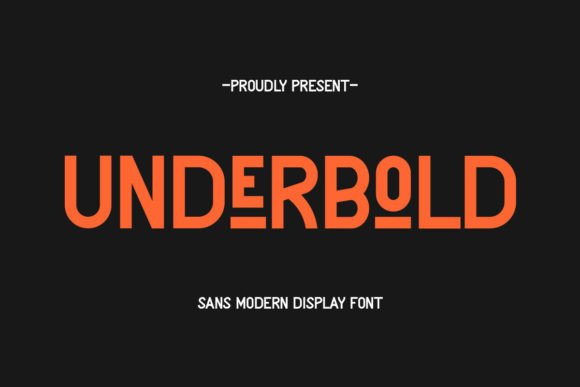
Step onto the court and make a statement with Underbold, the font that captures the essence of basketball's dynamic spirit. This sans serif font, brought to you by Masyafi Studio, embodies the sleek and energetic style of the game. Its minimalist monoline shape, meticulously crafted with a modern touch, exudes confidence and agility.
With Underbold, your designs will dribble past the competition, leaving them in awe. Its clean lines and sharp angles mimic the swift moves of a point guard, cutting through the defense with precision. Whether you're creating posters, jerseys, or social media graphics, Underbold will elevate your designs to championship status.
Imagine your words leaping off the screen, soaring through the air like a perfectly executed jump shot. Underbold's modern style brings a fresh perspective to your designs, making them stand out from the crowd. It's the perfect font for capturing the raw energy and passion of basketball, inspiring your audience to reach for greatness.
Underbold is not just a font; it's a game-changer. It's the secret weapon that will help you dominate the design court. Its versatility extends beyond basketball, making it a powerful tool for a wide range of creative endeavors. From striking logos to eye-catching headlines, Underbold will elevate your designs to new heights.